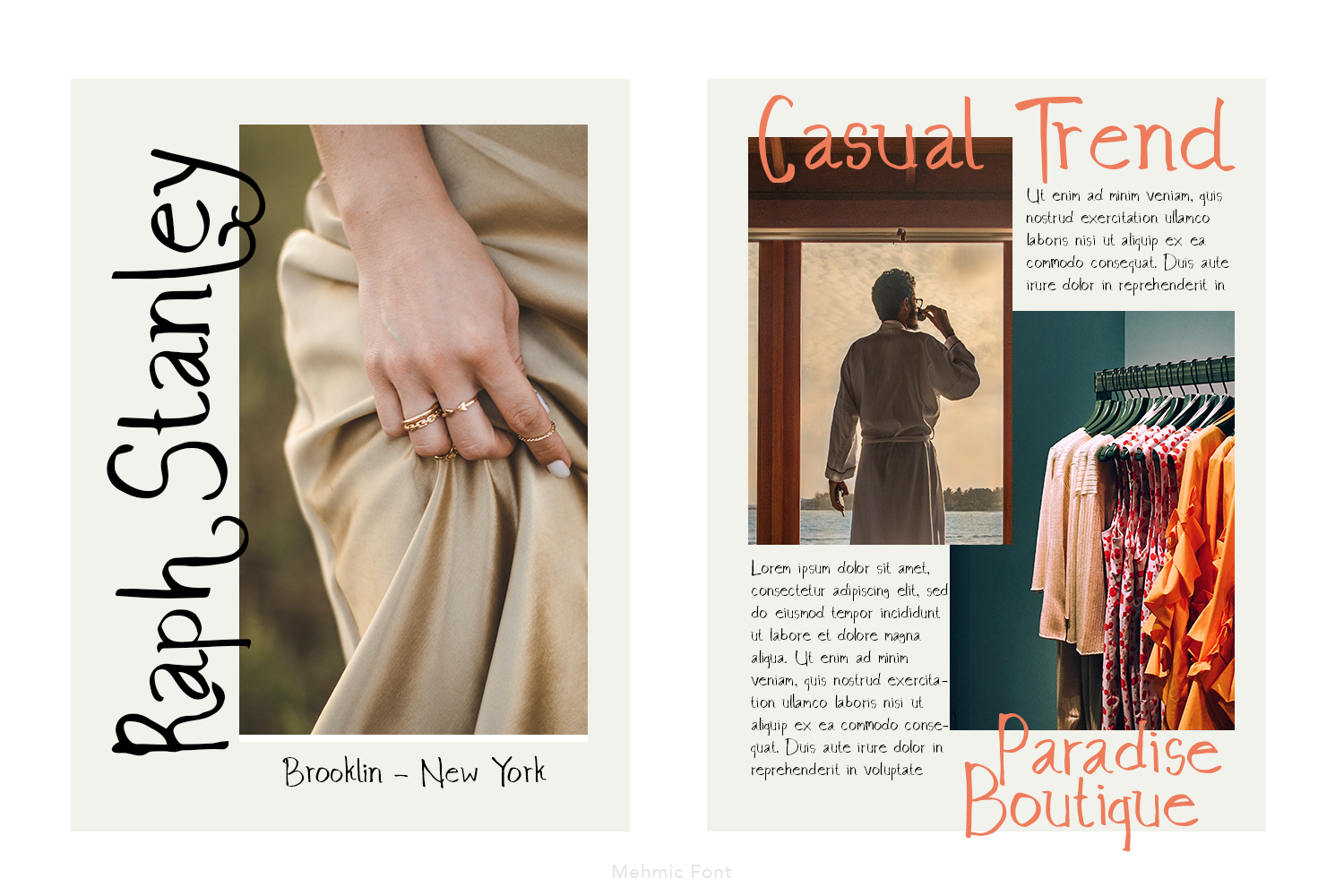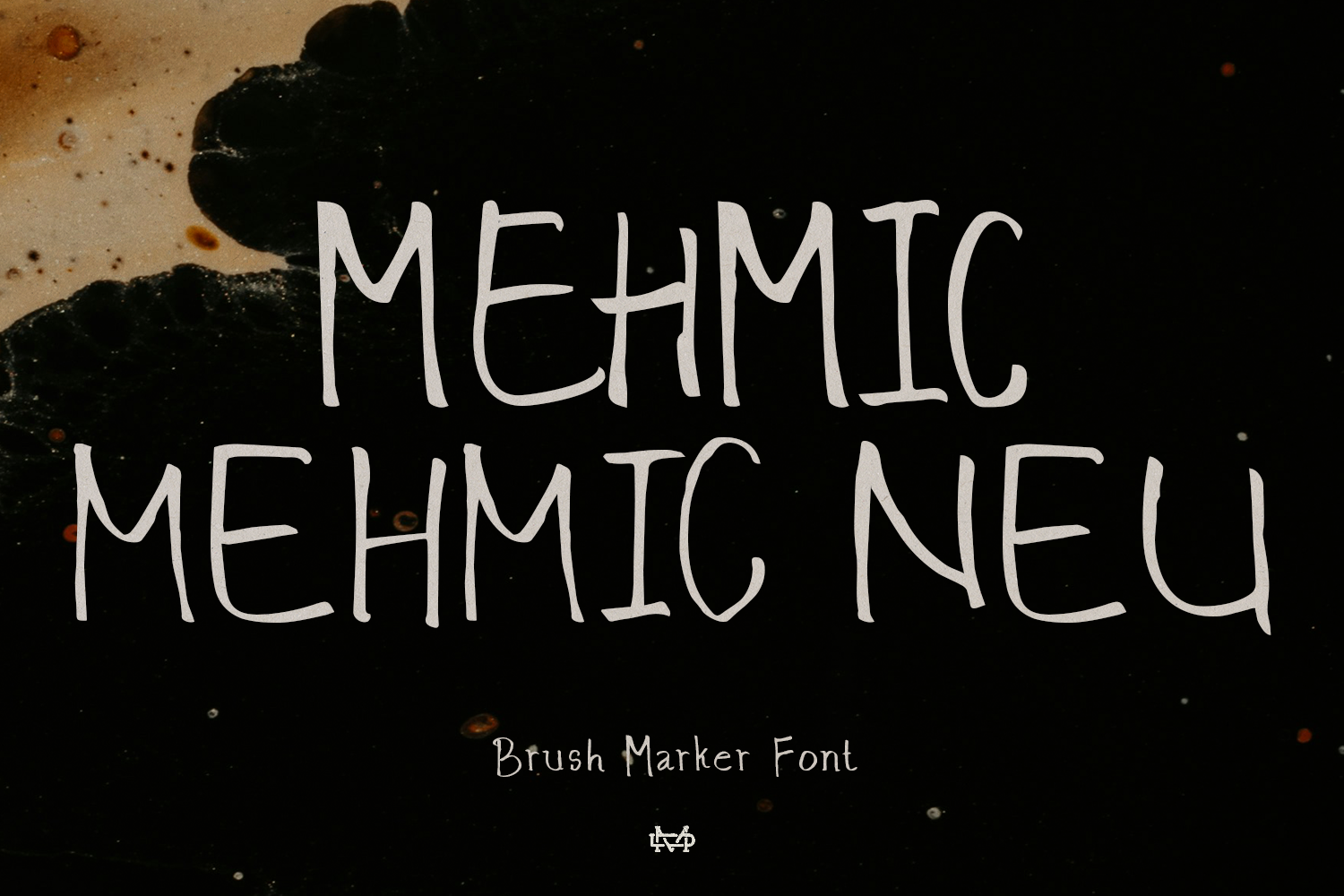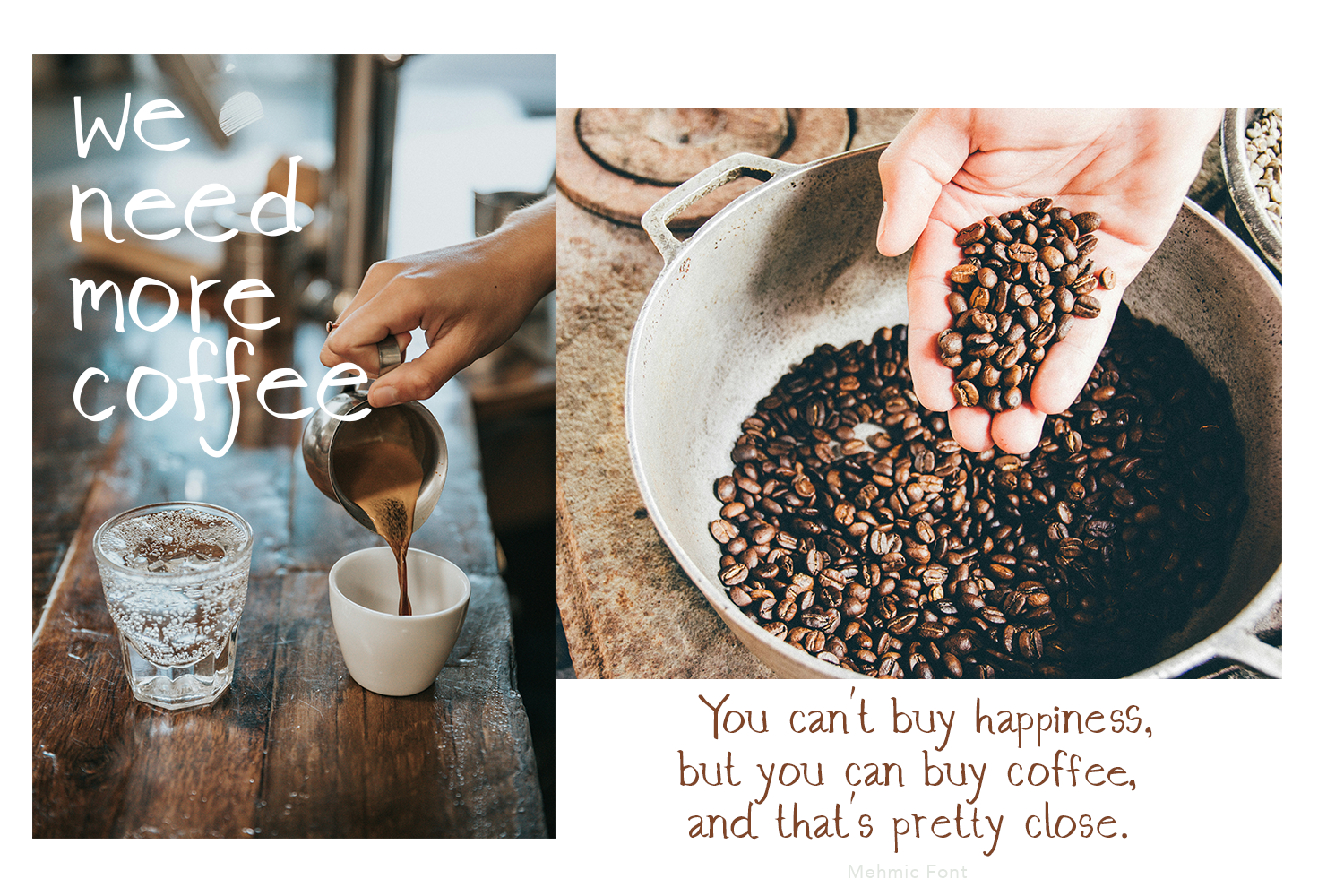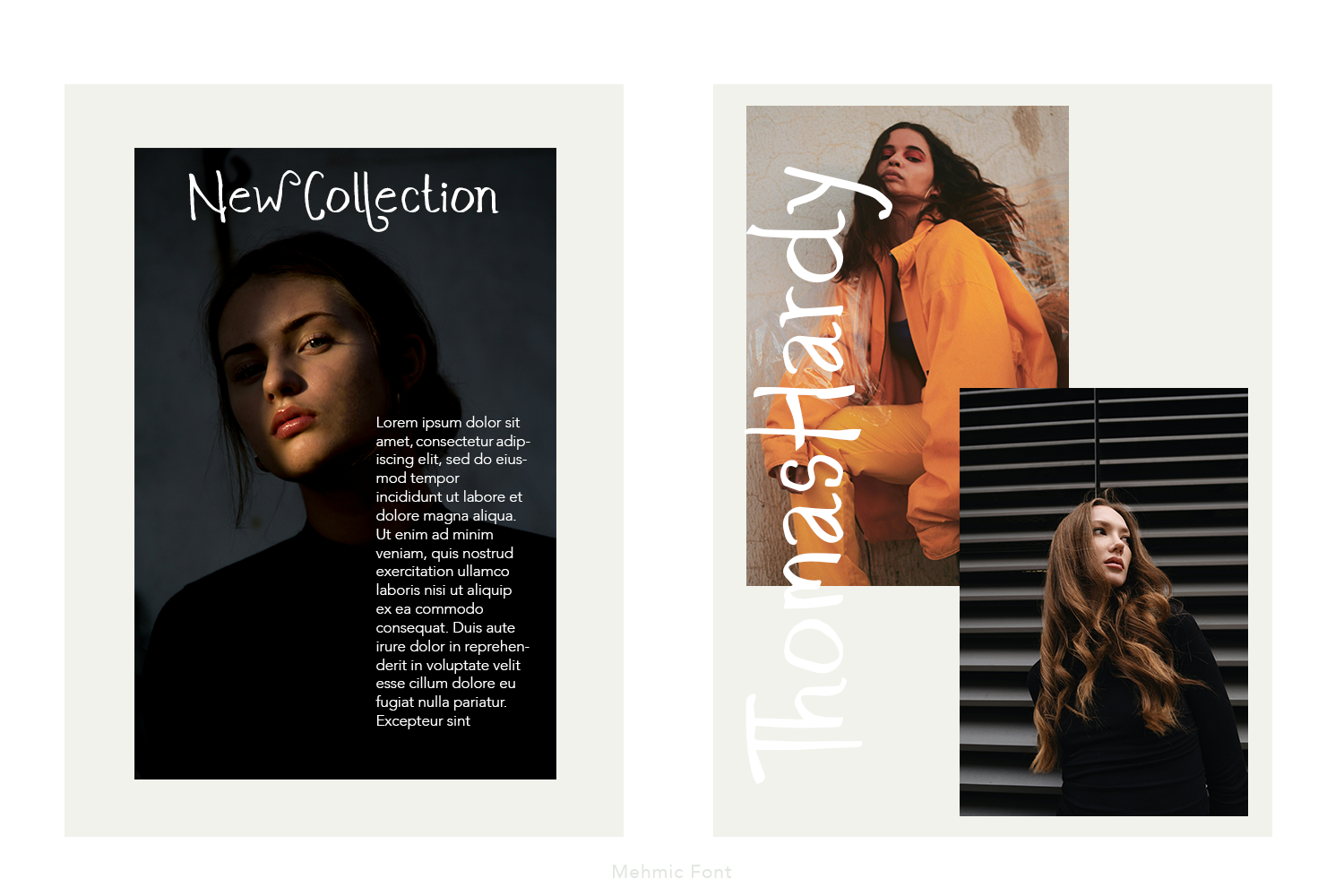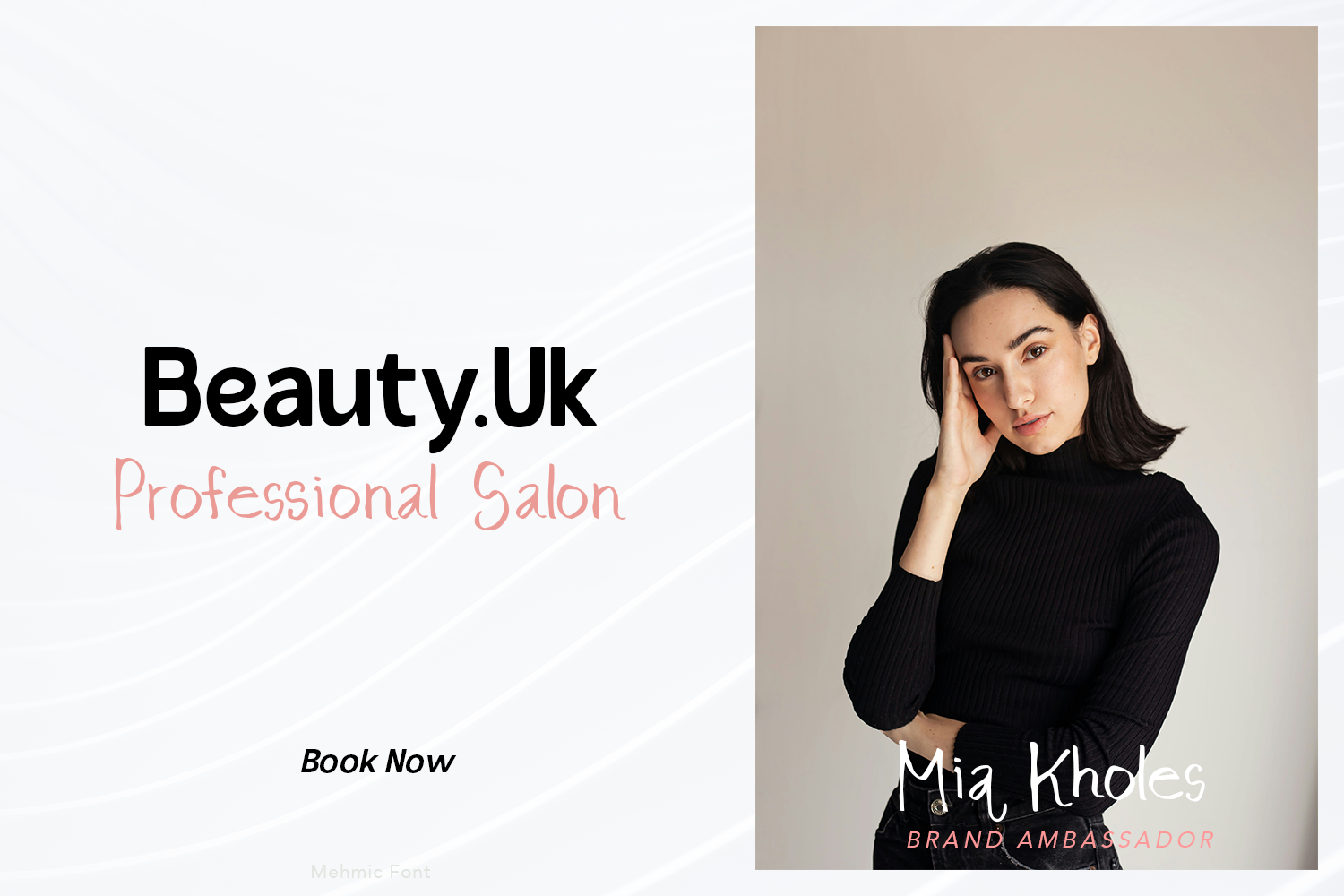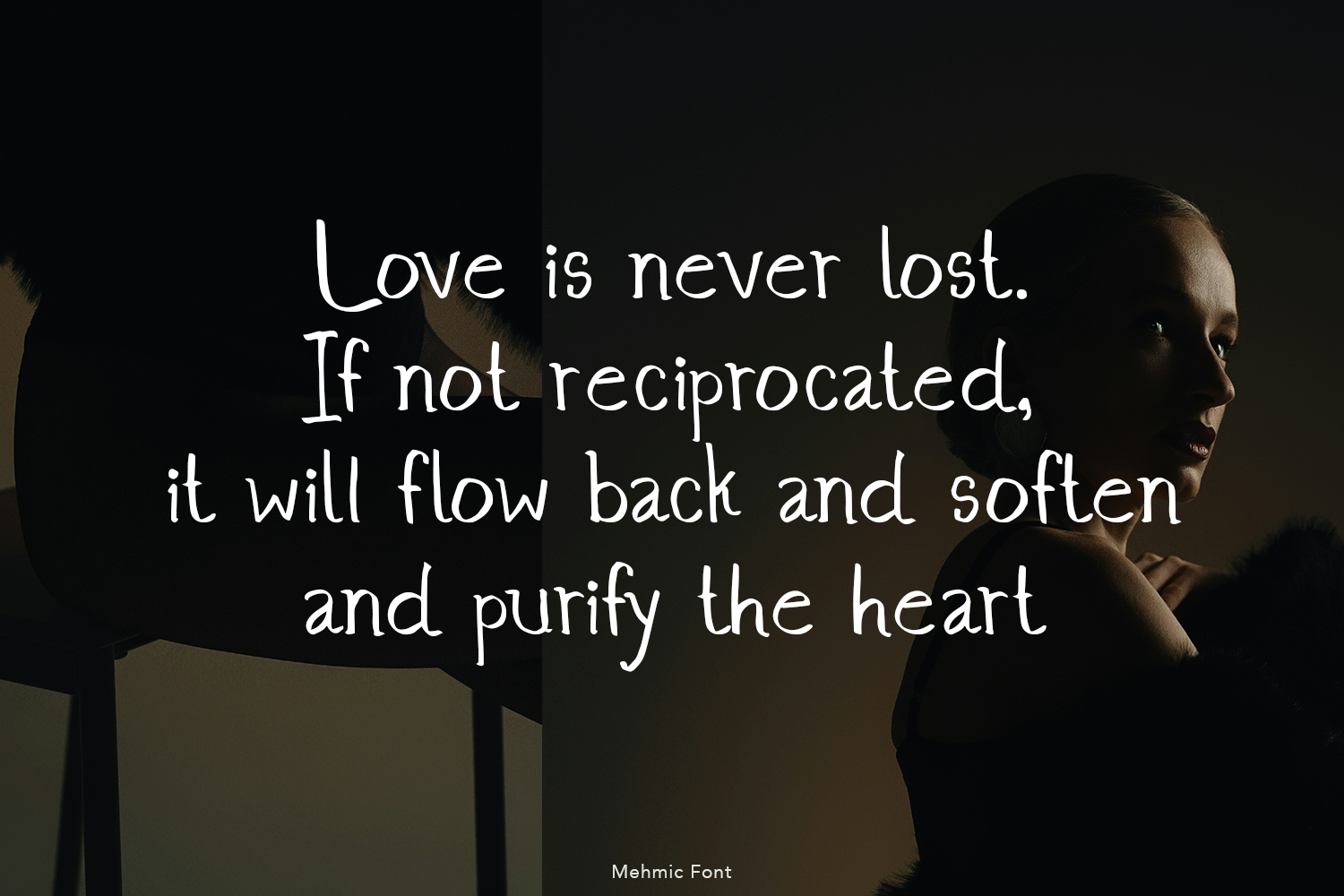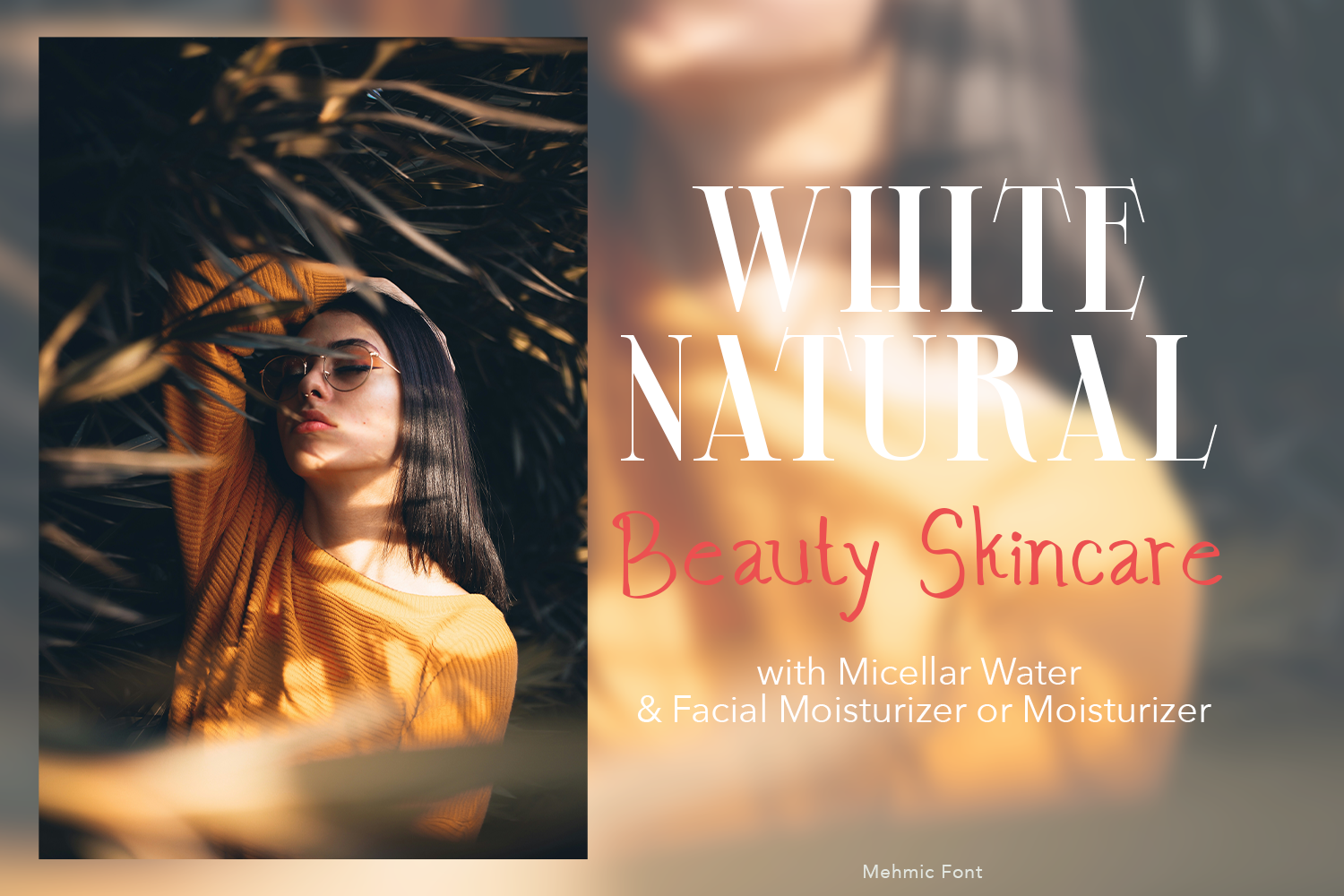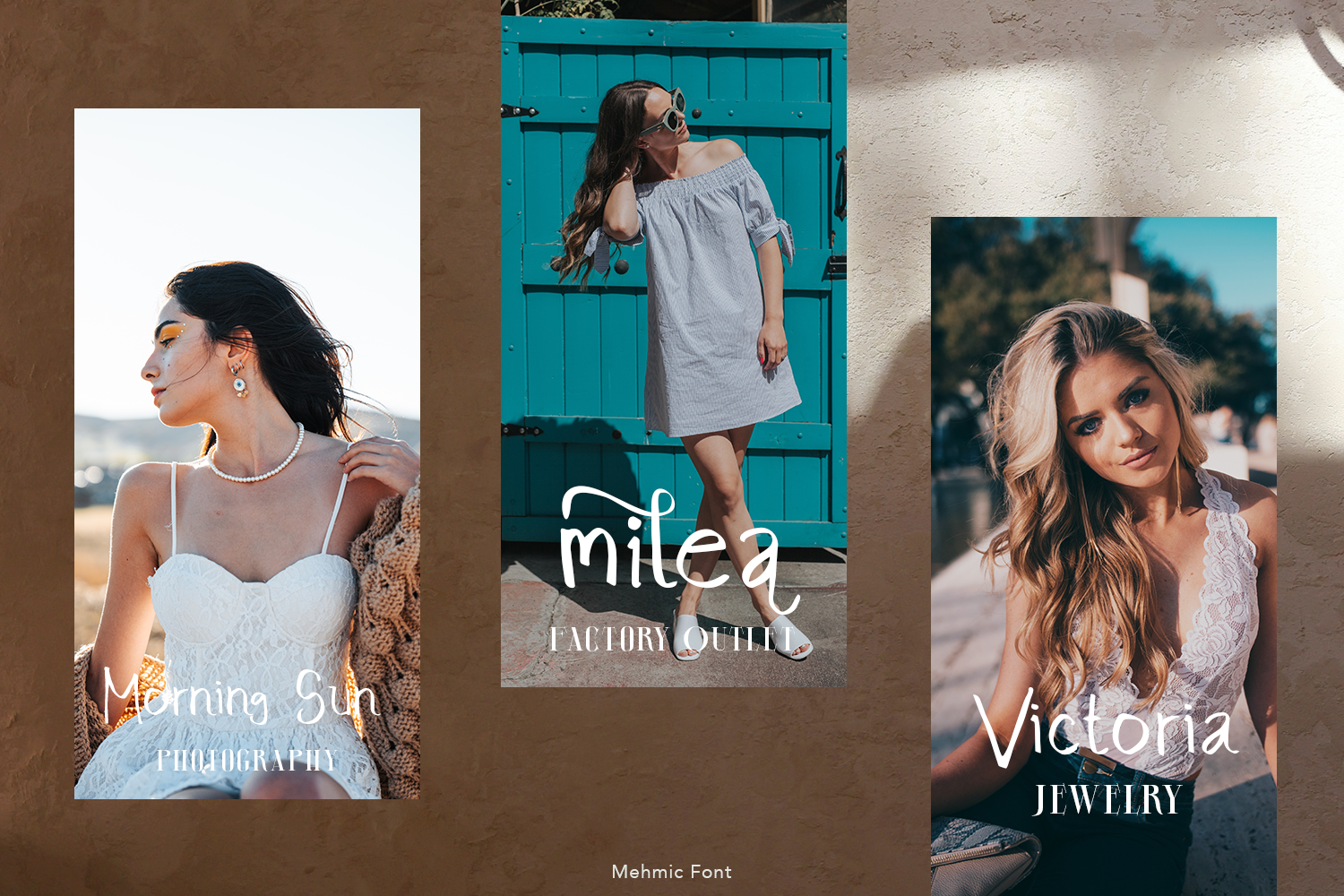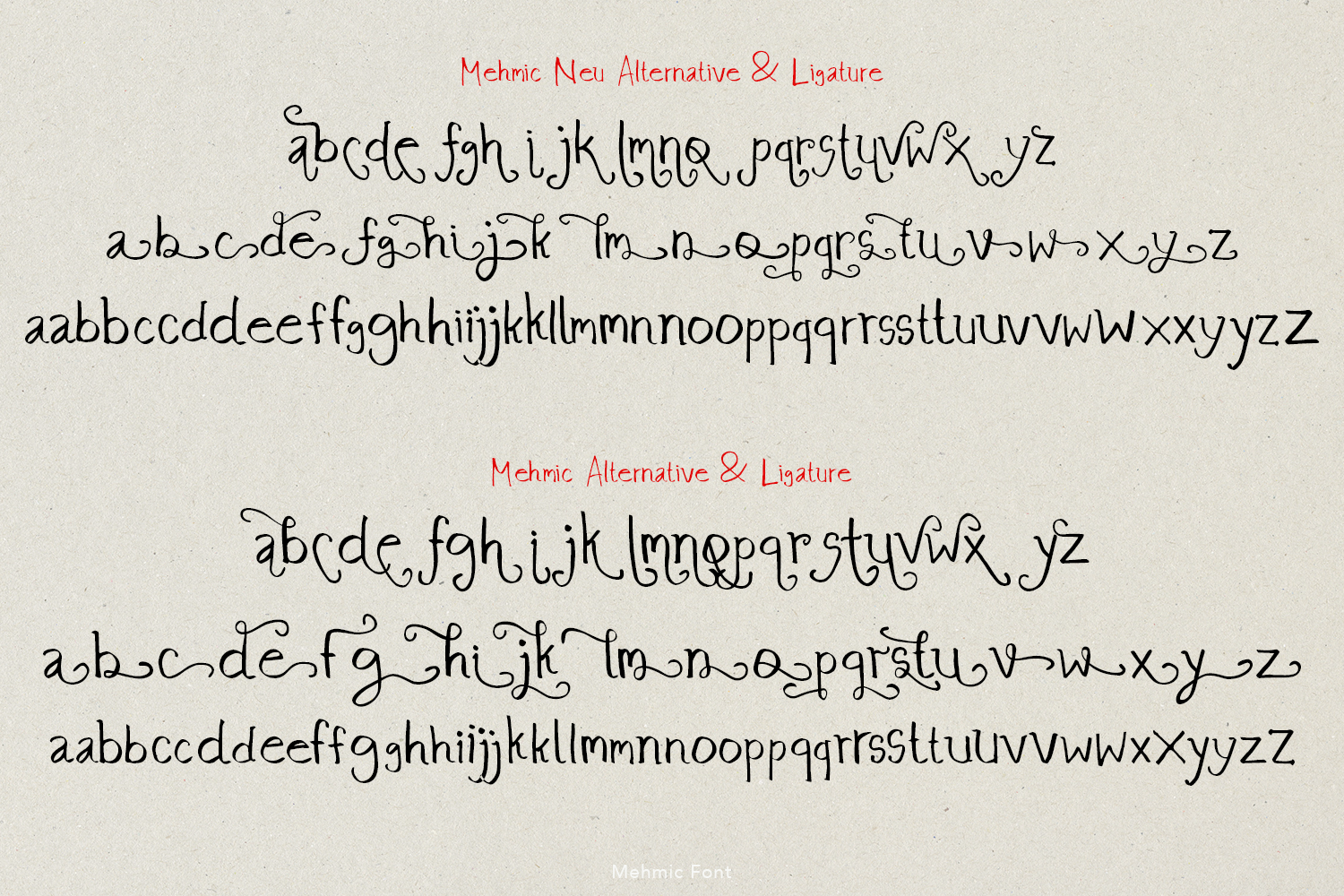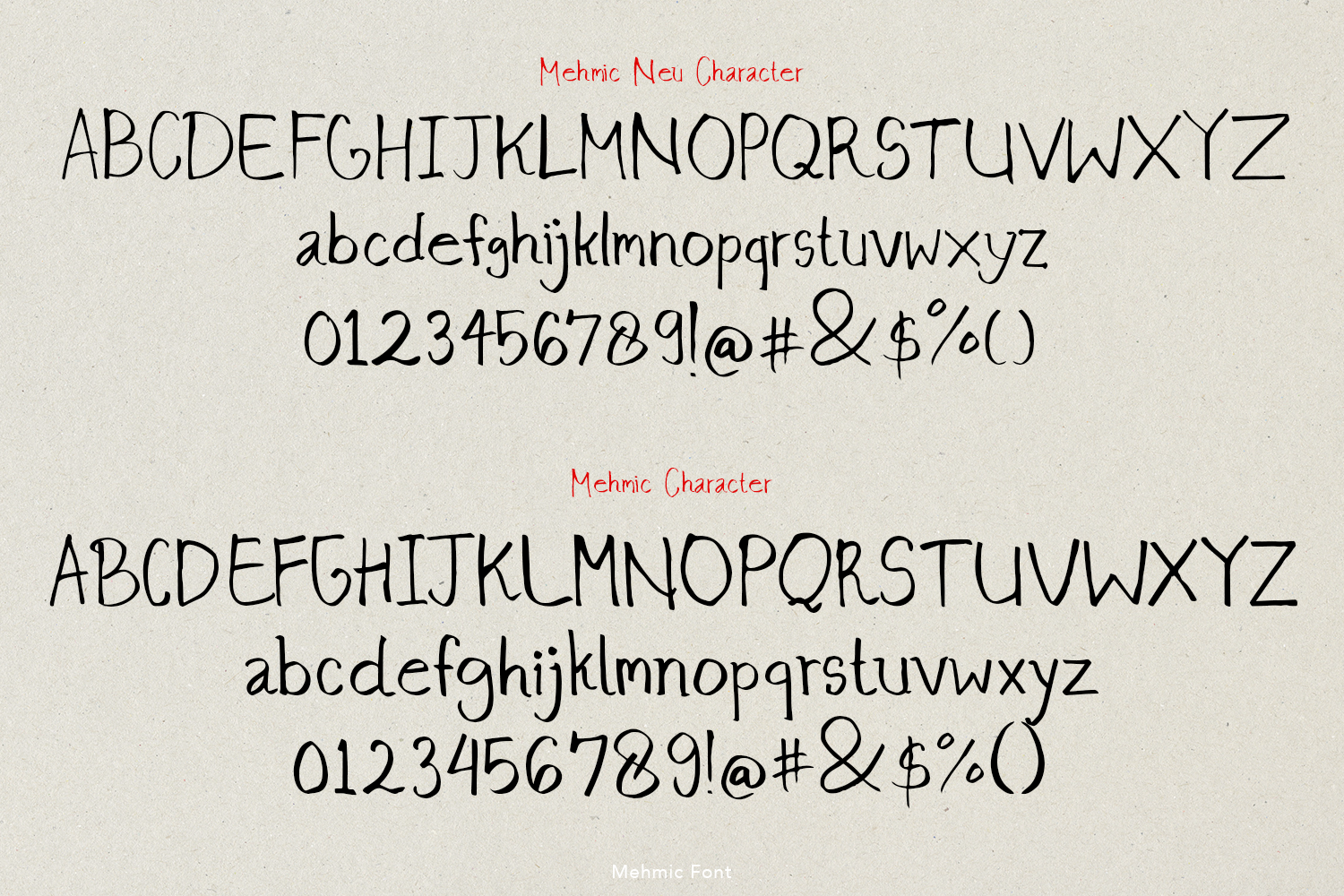
Mehmic Font
Introduce Mehmic and Mehmic Neu is a brush marker handwritten font to give an incredible impression for all your project design come with a lot ligatures and Alternative to make everything look realistic handmade handwritten.
- Number & Symbol
- International Glyphs
- Ligature
- Alternative